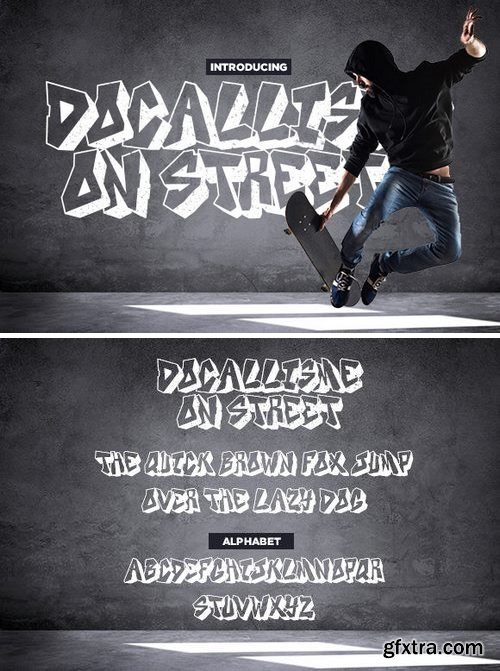
Docallisme On Street Font
The Docallisme On Street is a striking graffiti font. It has a graffiti style which makes it perfect for designs which need a street-art look.